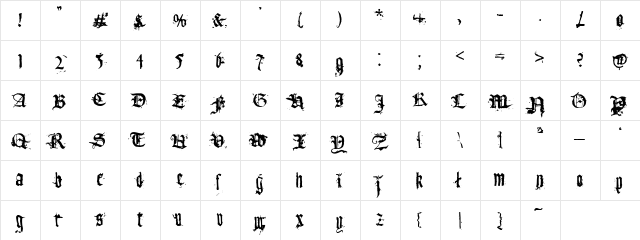
Tfu Tfu Regular Free Font
Tfu Tfu Regular
Tfu Tfu Family
Design Context for Tfu Tfu
Tfu Tfu is a composed and adaptable typeface that performs quietly and consistently across a wide range of design contexts.